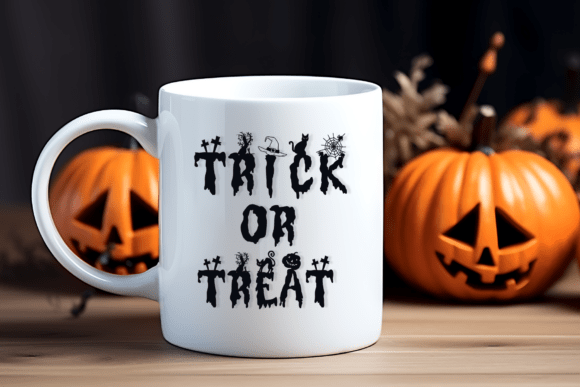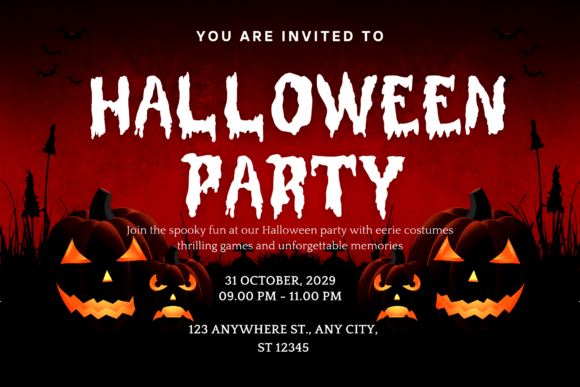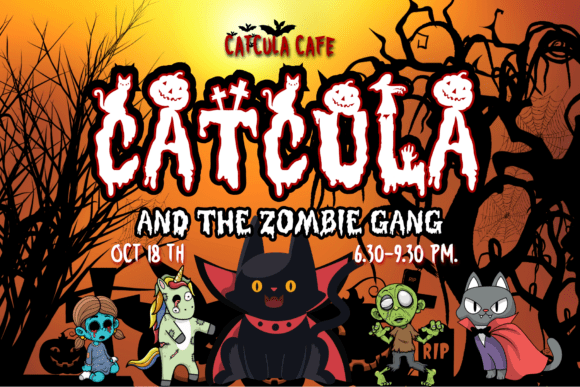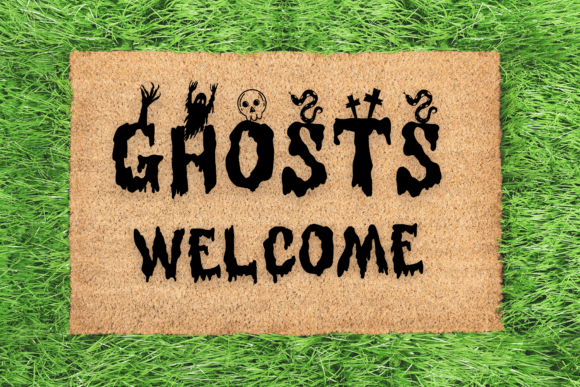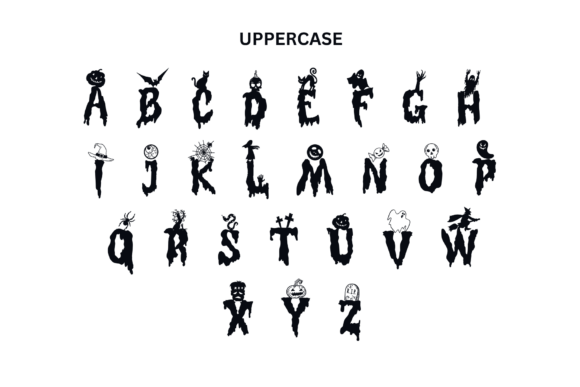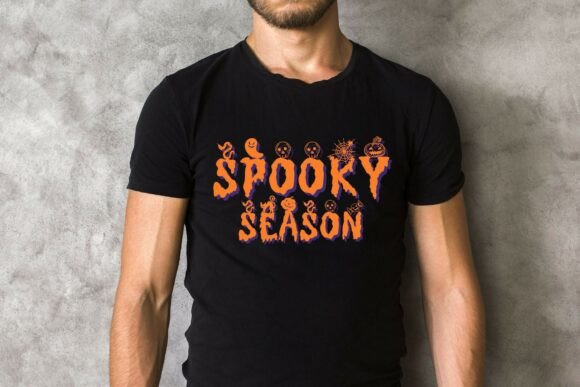
Get Ready to Cast a Spell with Creepy Halloween Font
As the leaves start to change and the air grows crisp, designers everywhere know that Halloween is just around the corner. It’s a time to unleash your creativity and let your imagination run wild with spooky decorations, eerie lighting, and, of course, terrifying typography. For me, it all started with a late-night brainstorming session, surrounded by old Halloween decorations and a blank computer screen. I knew exactly what I needed to bring my ideas to life – the perfect font to capture the essence of the spookiest night of the year.
That’s where Creepy Halloween Font comes in – a unique and eye-catching decorative typeface designed specifically for Halloween designs. With its creepy blood dripping shapes and Halloween elements like pumpkins, witches, spiders, tombstones, and ghosts, this font is the perfect tool for any designer looking to add a touch of spooky fun to their project.
Creepy Halloween Font Key Features
- Unique Characteristics: Distressed, spooky, and eerie letterforms with irregular edges and subtle texture, evoking a sense of old, worn-out tombstones or haunted mansions
Designer Review: Creepy Halloween Font
Overall, I was quite excited to dive into the “Creepy Halloween Font” – the name alone promised a spooky and eerie vibe that’s perfect for the Halloween season. And, for the most part, it delivers. ✨ Here are some things that work well:
- Uniqueness: The font is unlike any other I’ve seen – it’s got a great, creepy feel to it that’s perfect for Halloween-themed designs.
- Flexibility: It’s a versatile font that works well in a variety of contexts, from invitations to decorations.
- Expression: The font’s unique characters and symbols add an extra layer of personality to any design.
However, there are some limitations to consider. ⚠️ Here are a few things that might hold you back:
- Legibility: In certain situations, the font can be a bit hard to read, especially at smaller sizes.
- Lack of customization options: The font doesn’t offer a lot of customization options, which might limit your ability to tailor it to your specific needs.
- Glitches: I encountered a few glitches while testing the font, including some issues with character placement.
Overall, I’d say the “Creepy Halloween Font” is a solid choice for Halloween-themed designs. While it’s not perfect, it’s a unique and versatile font that’s sure to add some personality to your projects. Just be aware of its limitations, and you’ll be all set for a spooktacular Halloween season.
The “Creepy Halloween Font” is ideal for creating spooky designs, invitations, and social media posts. To get the most out of it, experiment with different font sizes, colors, and combinations. Use it for Halloween-themed designs, horror movie posters, and creepy quotes.